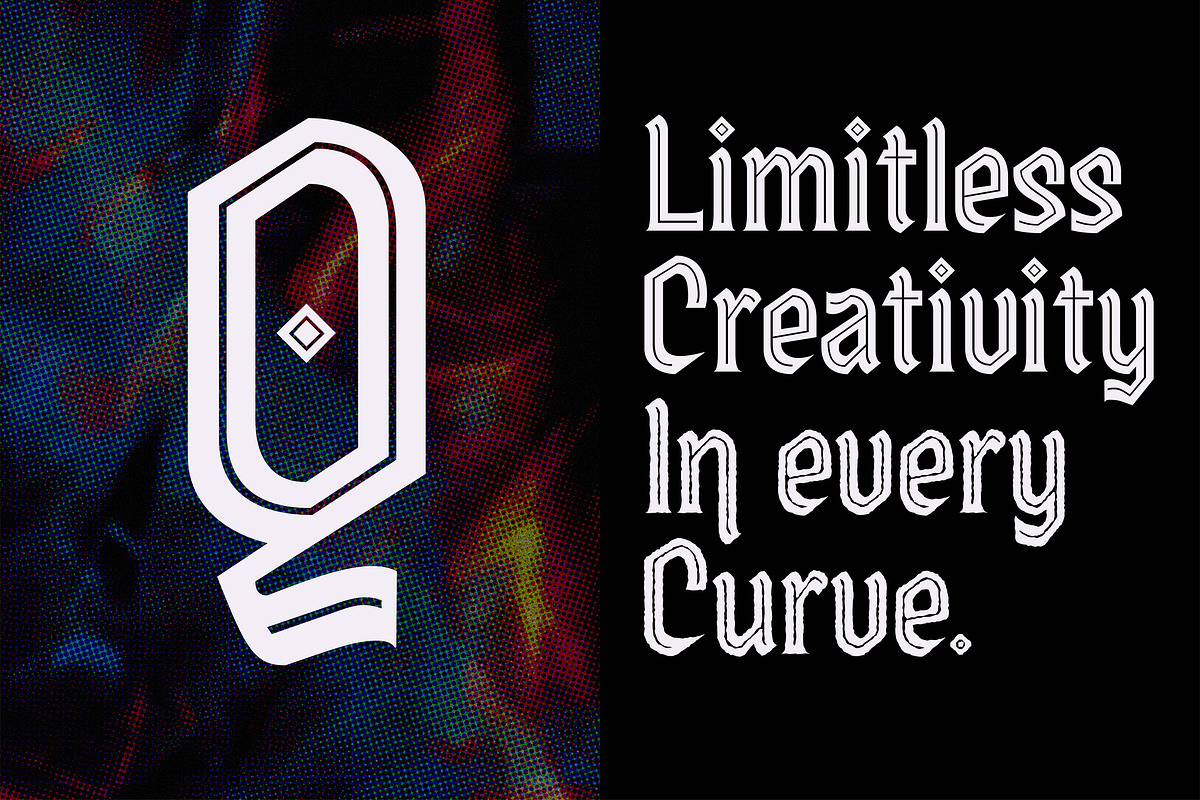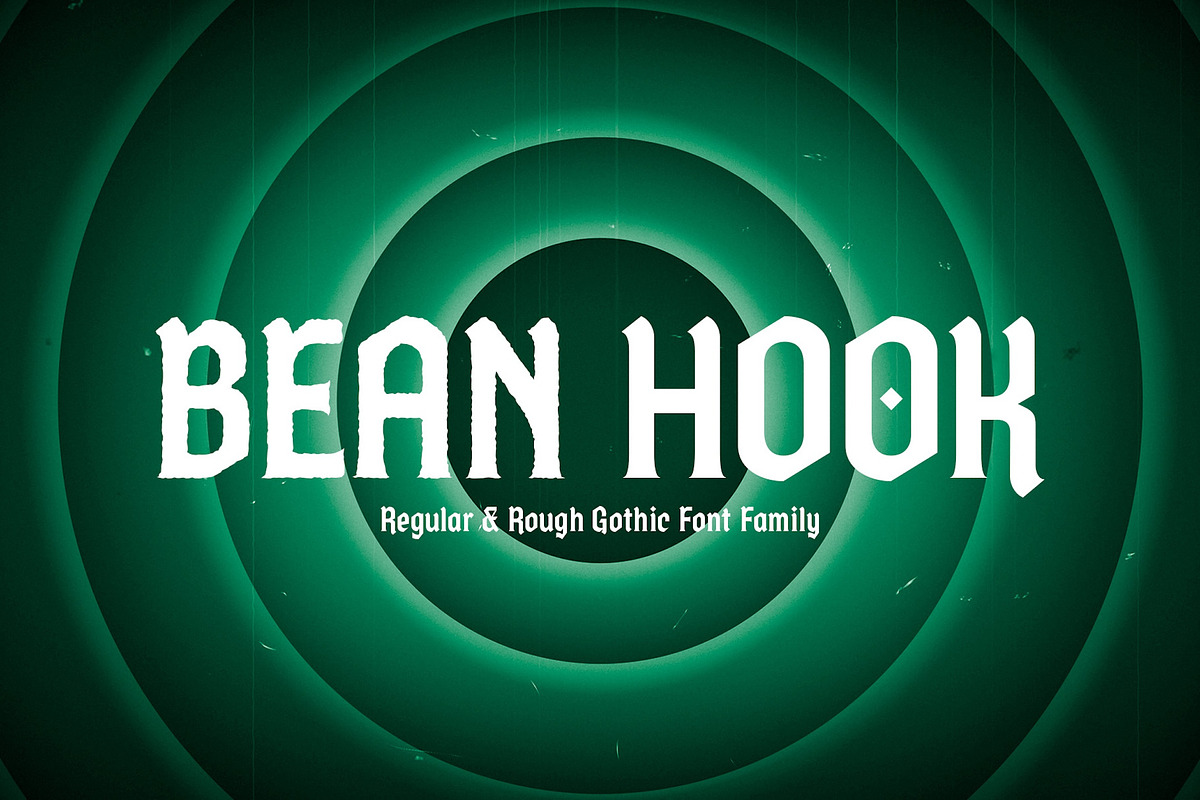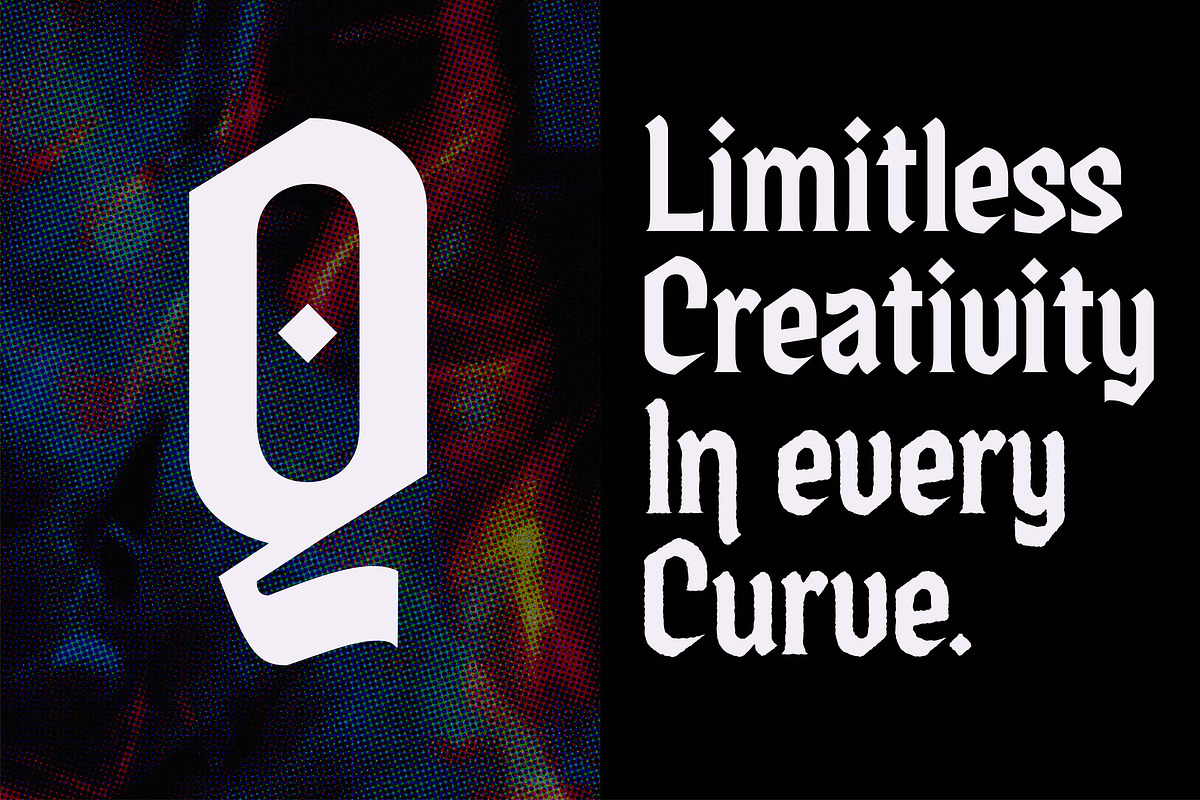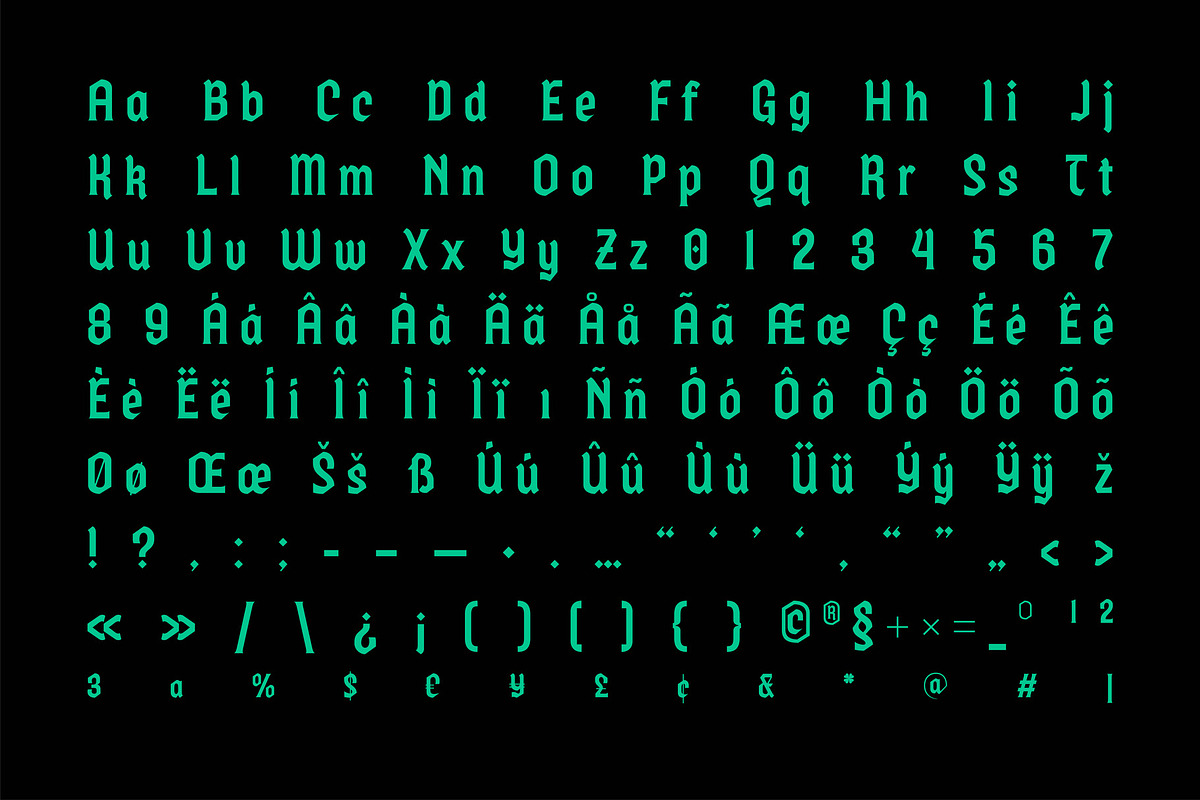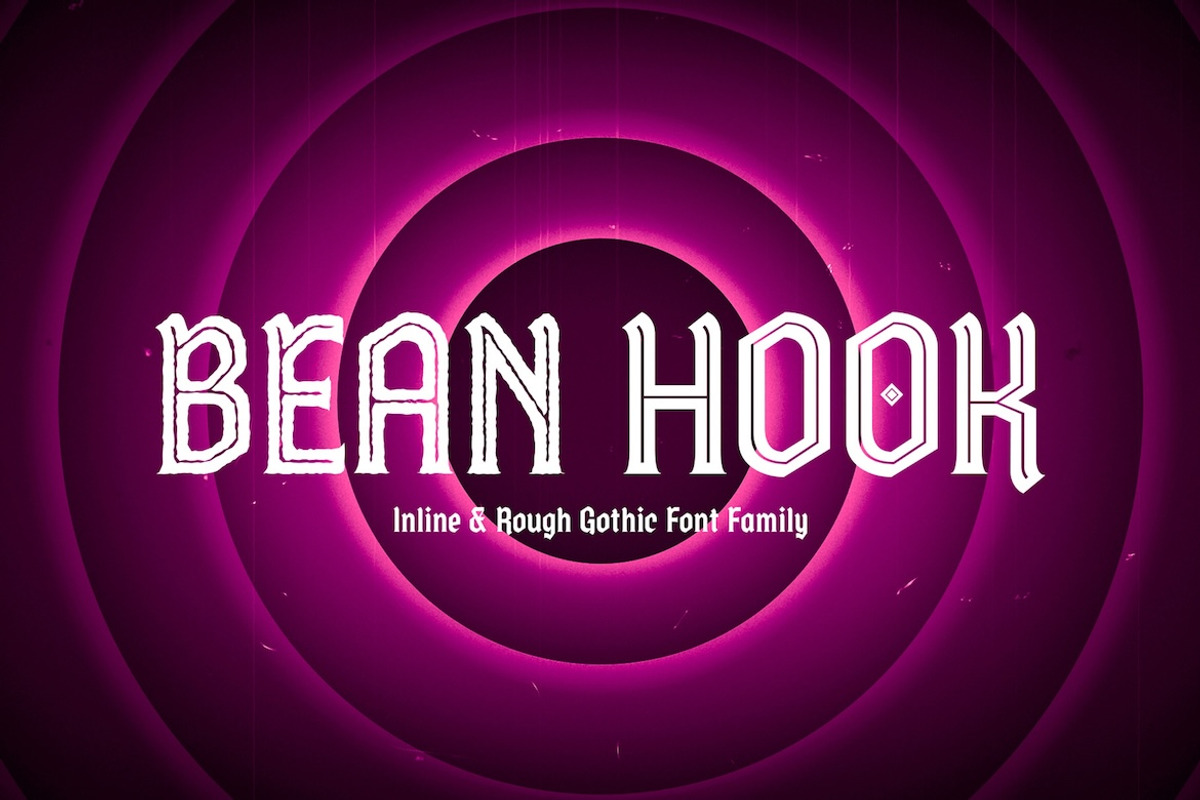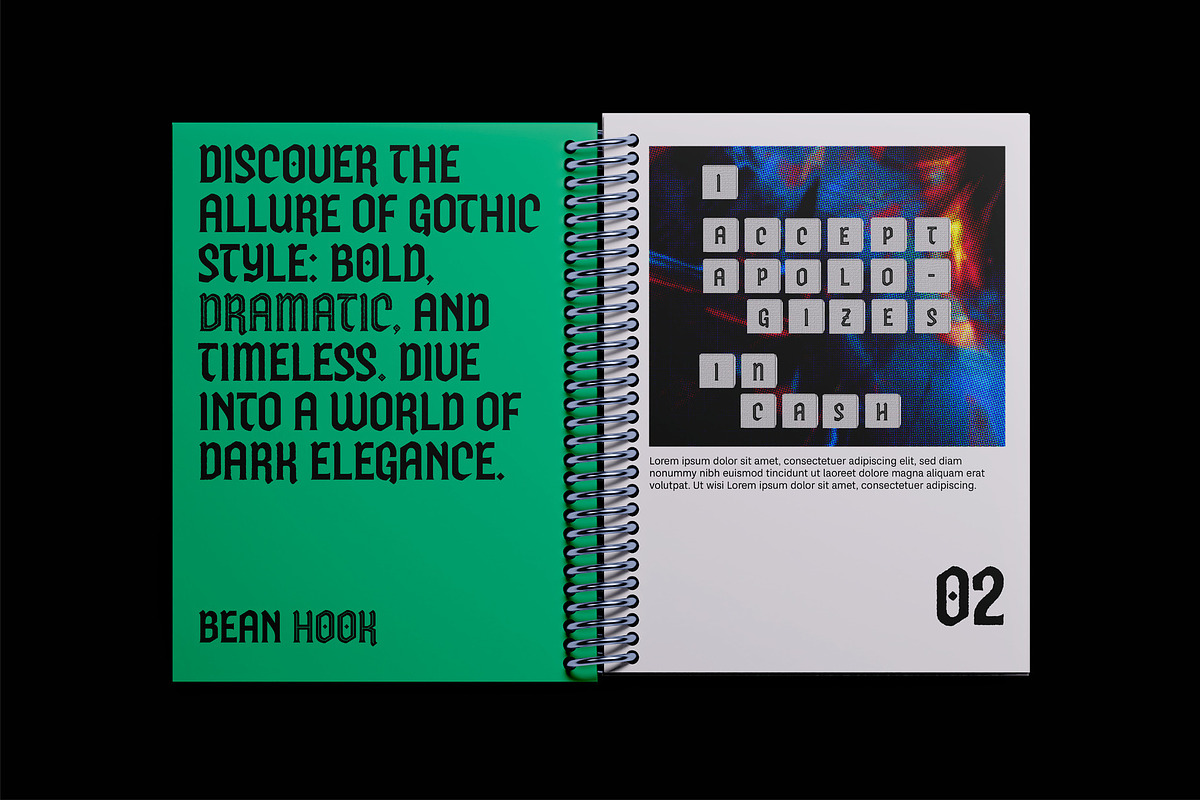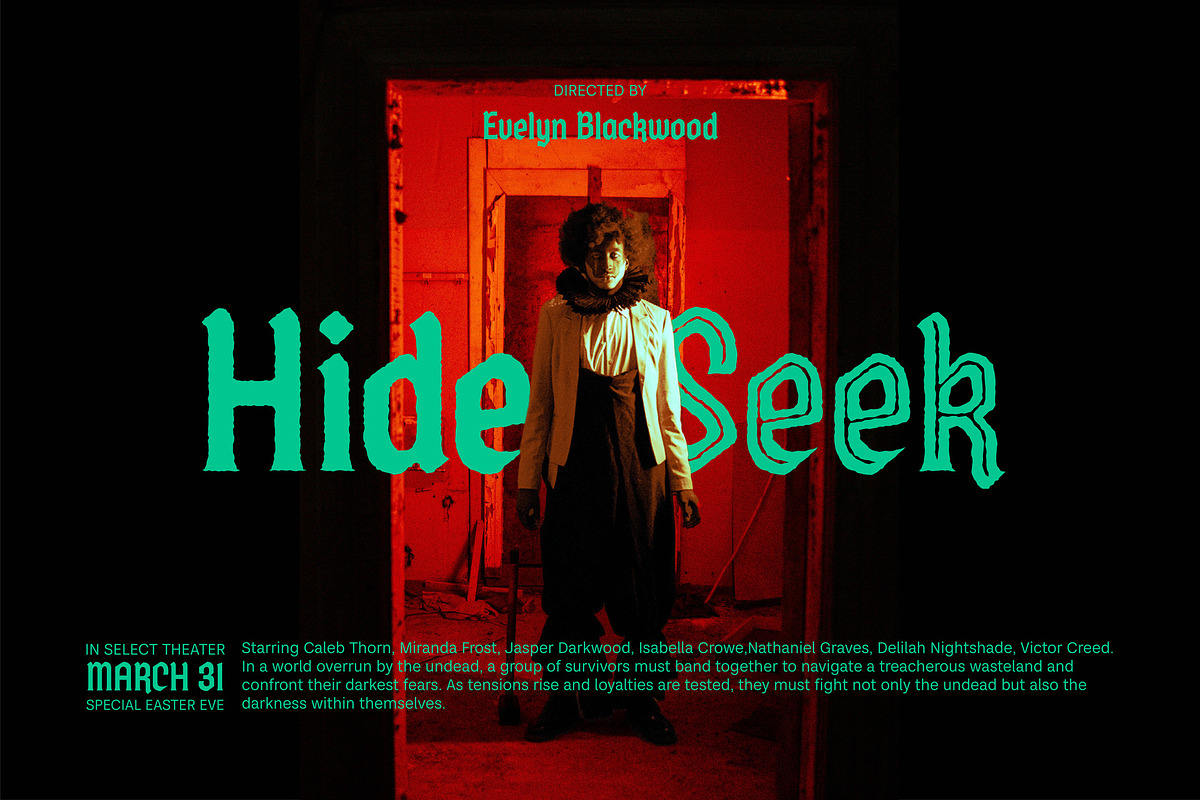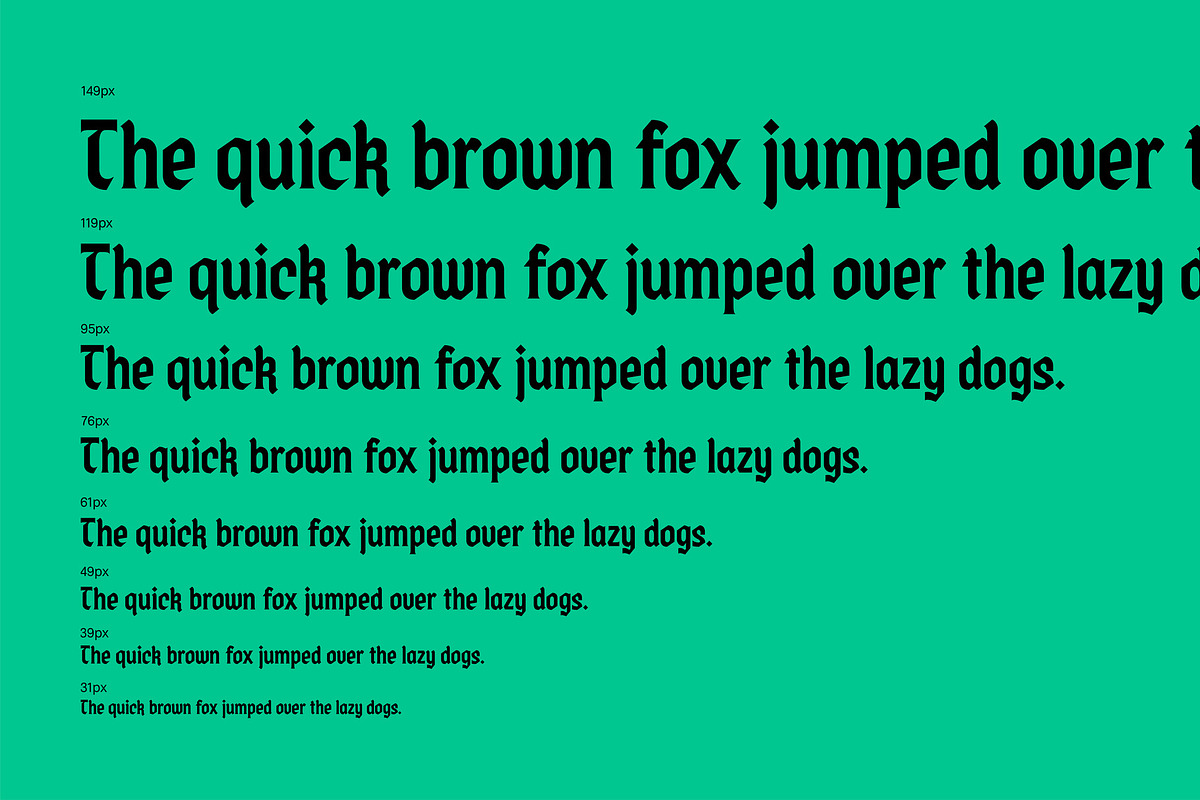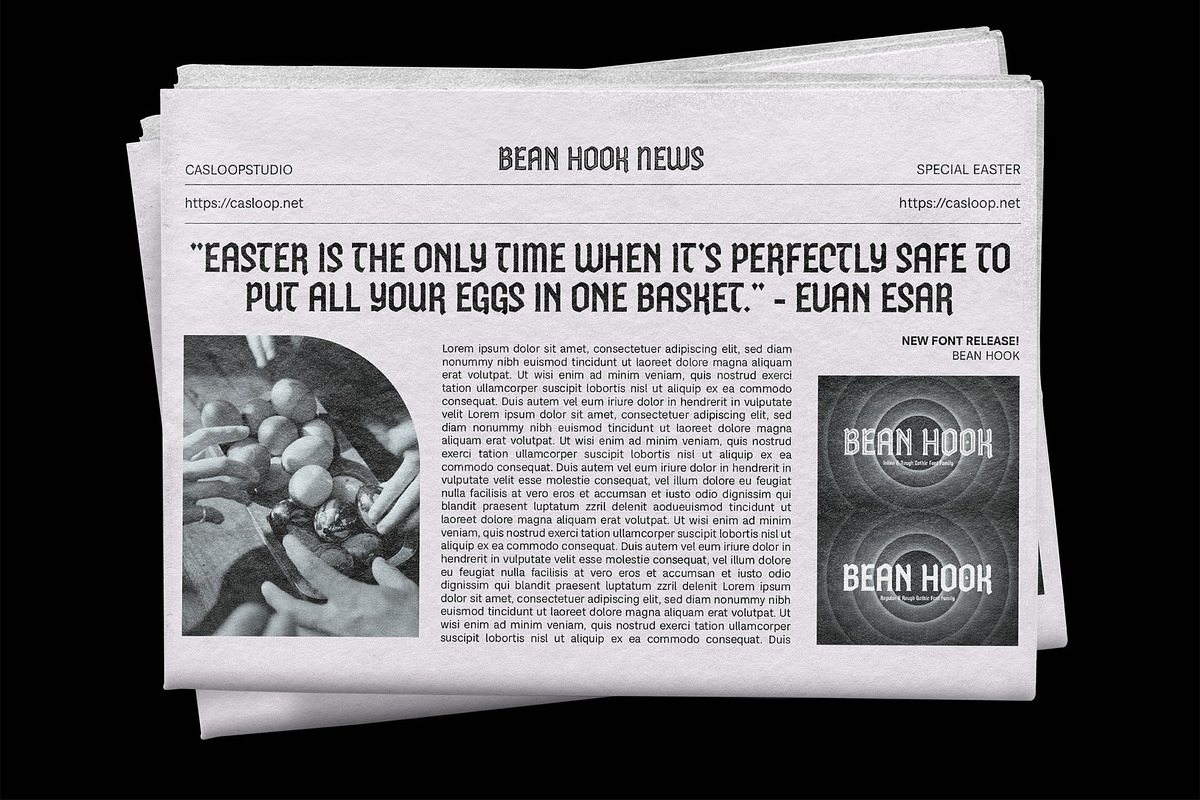
Bean Hook Gothic Flare 4 Fonts
Introducing Bean Hook
a Gothic Flare font that seamlessly blends the almost mystical essence of black letter with the dynamic charm of flare serif. This unique display font stands out with its characteristic angularity, offering a contemporary twist to traditional Gothic styles.
Characteristic of Bean Hook is its versatile application across various design projects, from websites and packaging to logos and branding. Elevate your music endeavors with captivating album covers and distinctive logotypes. Embrace the font's ethnic and experimental Gothic mood for fashion, posters, and 3D projects.
Bean Hook boasts superior features, making it an excellent choice for your creative ventures. Its woodtype and antique-inspired design add an authentic touch to your Easter-themed projects, featuring elements like bunnies, chicks, crosses, and festive symbols. Whether you're working on a church event or an Easter celebration, Bean Hook's diverse variants - regular, rough, inline, and rough inline - offer endless possibilities.
Capture attention with the font's unique combination of St. Patrick's Day elements, including Shamrocks and Leprechauns. The font's versatility extends to festivals, making it an ideal choice for Easter-themed designs. Immerse yourself in the experimental Gothic vibe, perfect for creating an atmosphere that is both mysterious and contemporary.
- Ligatures and Alternates
Bean Hook is not just a font; it's a design tool that brings your vision to life. Its dynamic style is perfect for expressing creativity in a bold and impactful way. The font's name, inspired by its distinctive characteristics, reflects its ability to hook your audience with its charm.
In summary, Bean Hook is the go-to font for those seeking a unique, versatile, and captivating typeface. With its combination of Gothic and flare serif elements, it adds an experimental touch to your projects, making them stand out in the crowd. Download Bean Hook now and infuse your designs with the spirit of St. Patrick's Day, Easter, and beyond.